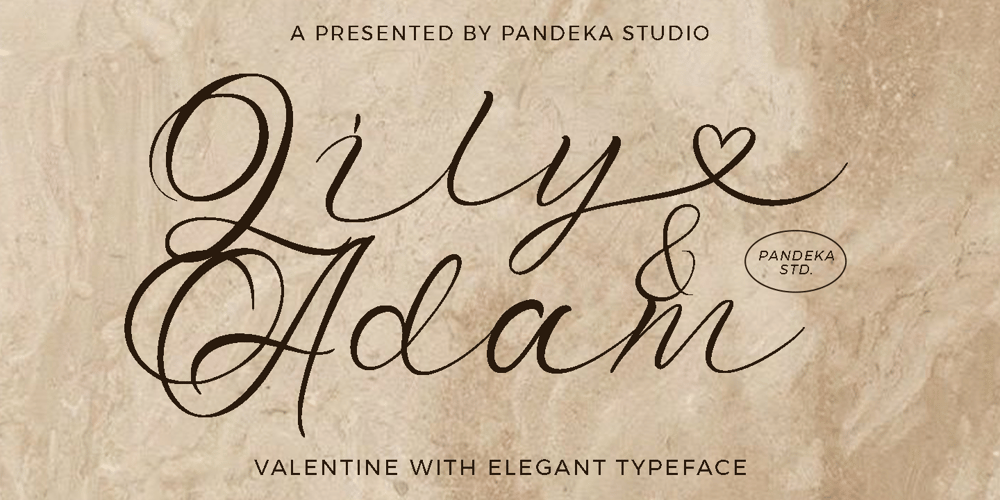
Lily Adam Font Family was designed by Sagara Nararya and published by Pandeka Studio. Lily Adam contains 1 styles and family package options. Introducing you my new modern calligraphy font – Lily Adam that particularly well suited for wedding invitations, save the date cards and feminine branding.Lily Adam includes full set of Uppercase and Lowercase Basic Characters, Numerals and Punctuation. Also it contains ligatures and the stylistic alternates for lowercase characters to perfectly re-create natural calligraphyFeatures Lily Adam Main Files Many swashes Instructions (Access special characters in all apps, even in Cricut Design) Accessible in Adobe Illustrator, Adobe Photoshop, Microsoft Word even Canva! PUA Encoded Characters. Fully accessible without additional design software Please let me know if you need my questions Thank youPandeka Studio